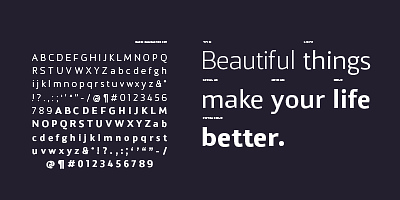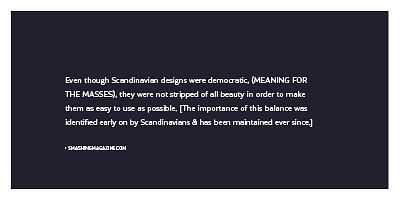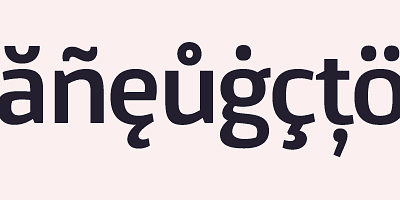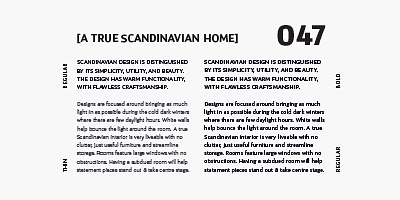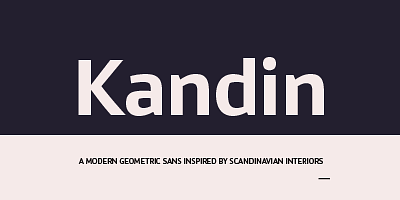
Kandin is a modern geometric sans inspired by Scandinavian interiors. With a cool and collected feel and low-key luxury, Kandin has a crisp and uncluttered feel providing legibility with strong doses of aesthetic pleasure. Being one of the most static and clinical of all classifications, Kandin successfully brings its playfulness in a subtle manner, keeping its minimalist, restrained, supremely peaceful feel. Although Kandin has geometric proportions, it has been carefully adjusted by eye for a simple pleasing look. It is suitable for a wide range of applications where a clear yet wonderful impression is required. Details include six weights, 470 characters, manually edited kerning, ligatures and case-sensitive punctuation.